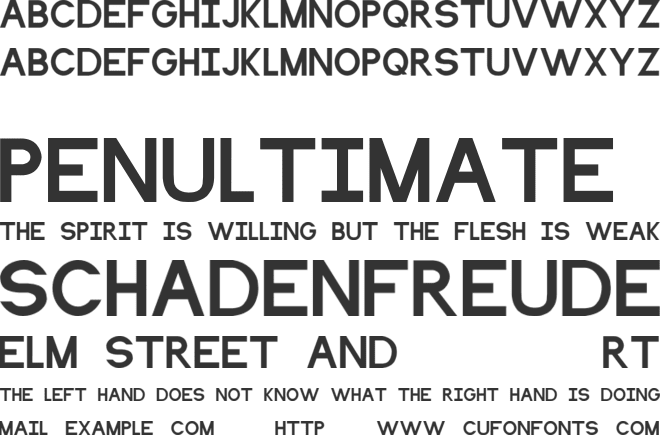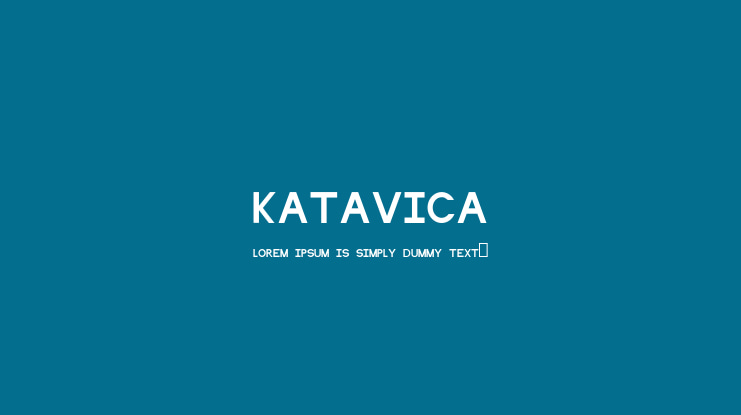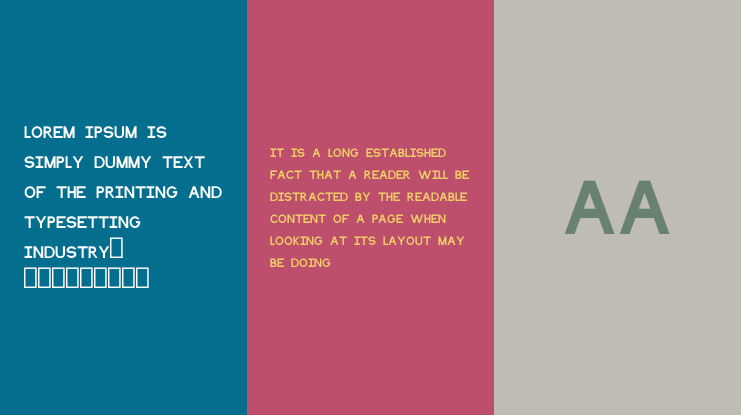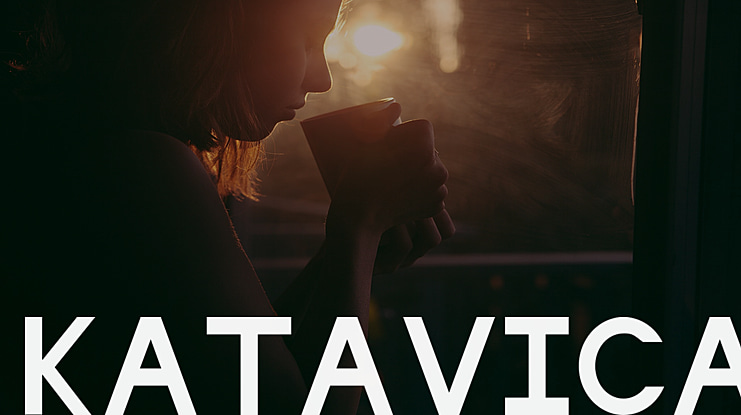
Katavica Font
After some research into the font families readily available in Adobe and Microsoft products, I realized a gap: while there are thousands of fonts for the Latin alphabet, the options for Hebrew and Arabic alphabets were limited. "Katav" is Hebrew for "he wrote." "Kataba" is Arabic for "to write." From this, I created "Katavica."
I wanted to create a font to have people of all different cultural groups feel seen, heard, and respected. In doing this, my hope is that members of the Hebrew and Arabic cultures will feel a sense of inclusion and dignity through design and accessibility.